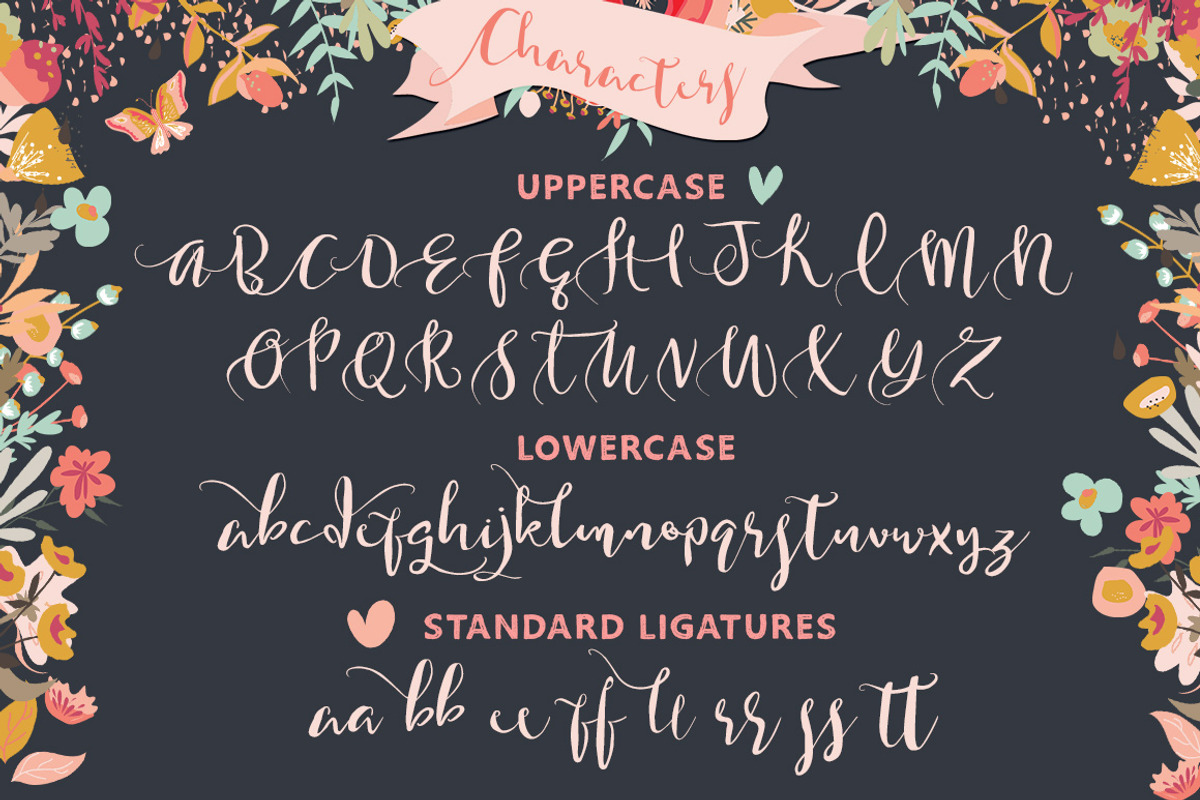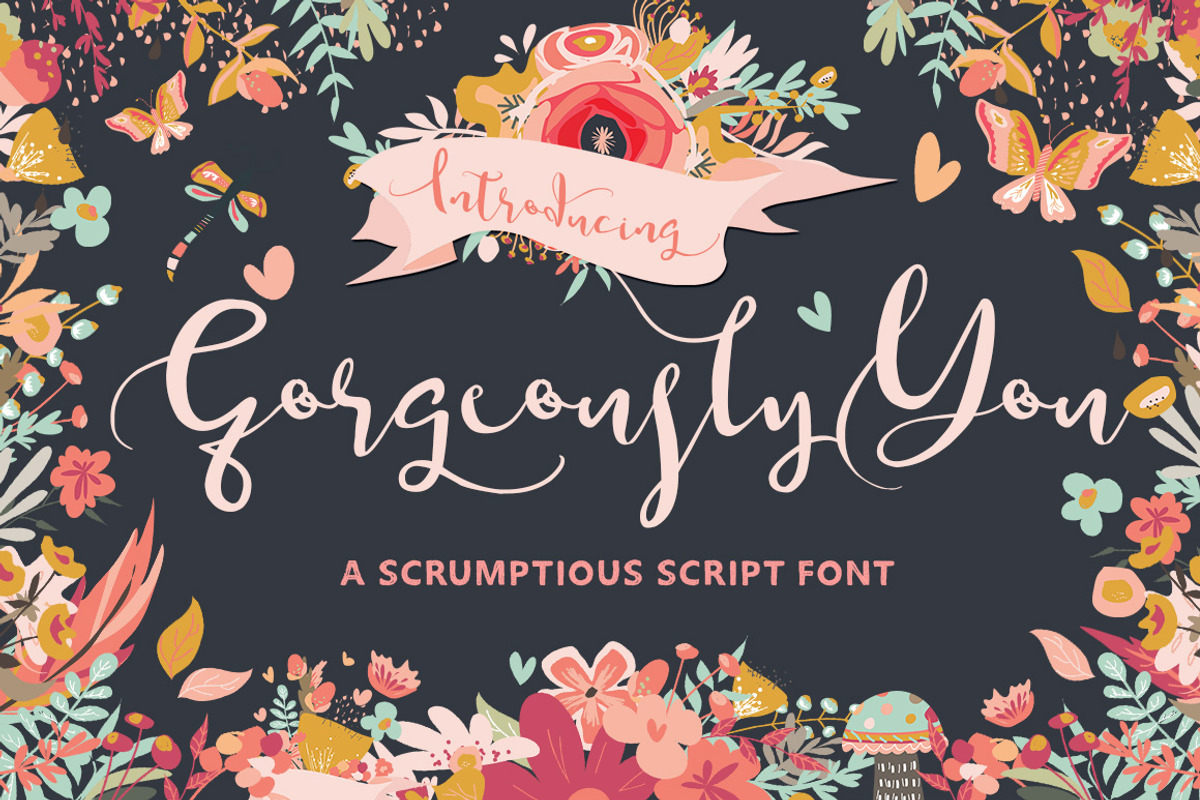
Gorgeously You Script Font
Gorgeously You Script Font by Creativeqube Design is a font selected for branding, posters, packaging, typography.
- Includes Standard Ligatures for those double letters.
Why Gorgeously You Script Font is worth a look
Gorgeously You Script Font by Creativeqube Design fits naturally into Branding, posters, packaging, typography.